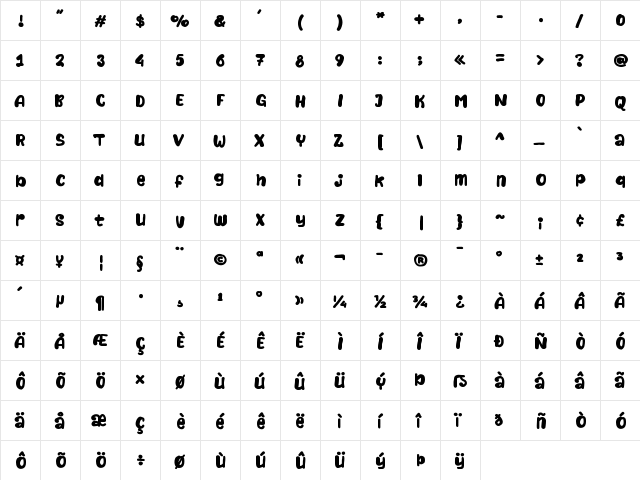
Naturalistic Playground Regular
Design Context for Naturalistic Playground Typeface
Naturalistic Playground softens its letterforms with rounded terminals, giving it an approachable, friendly quality that works well in consumer-facing and digital contexts.
Well-suited to UI design, mobile interfaces, and any brand that wants approachability without sacrificing clarity.
Font Pairing: Pairs well with a rounded or humanist sans for body copy, maintaining the friendly tone without relying on Naturalistic Playground to carry extended reading.
Pro Tip: Use Naturalistic Playground for UI elements, app interfaces, and anywhere a friendly, approachable tone needs to be maintained without sacrificing clarity.